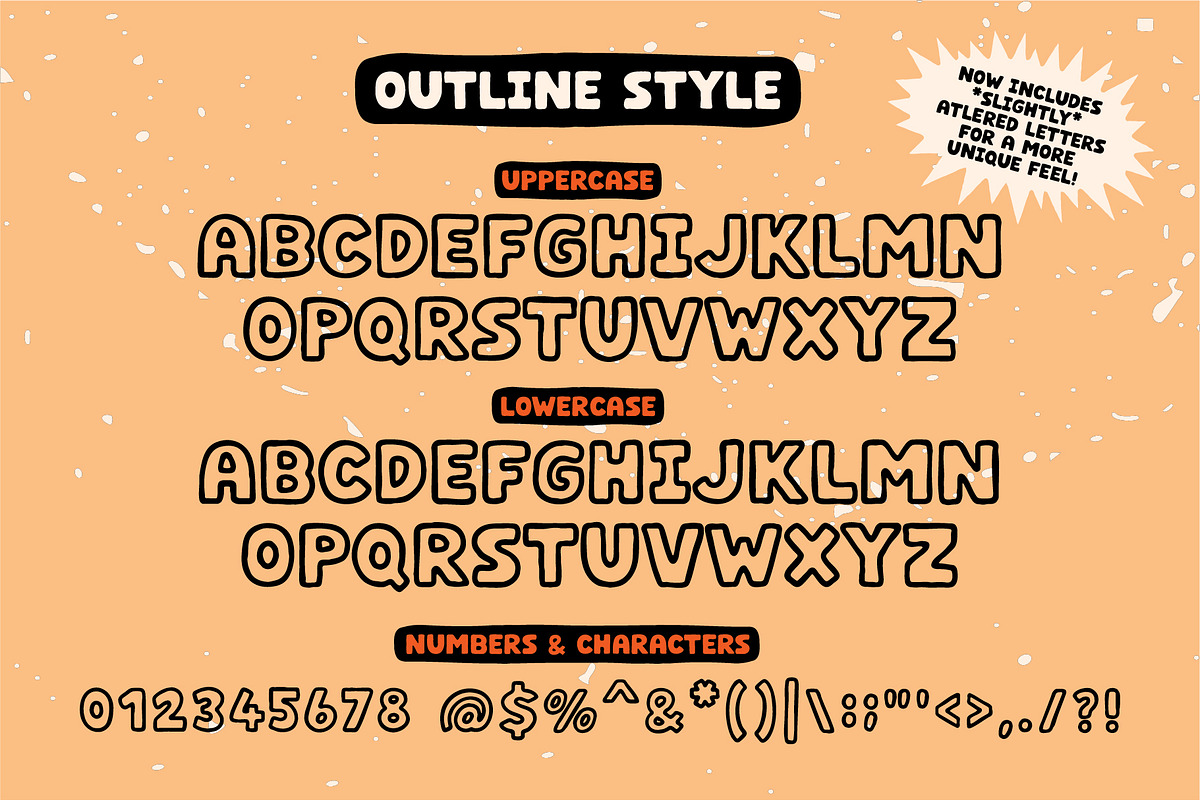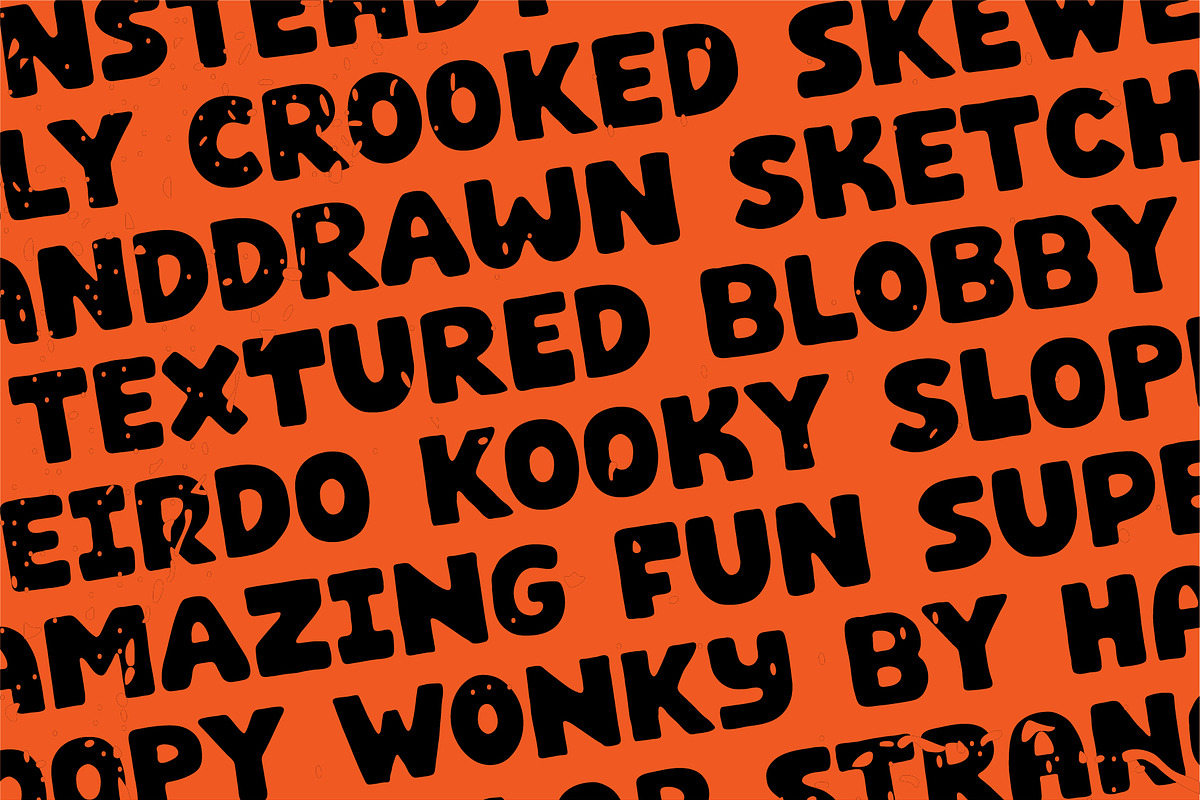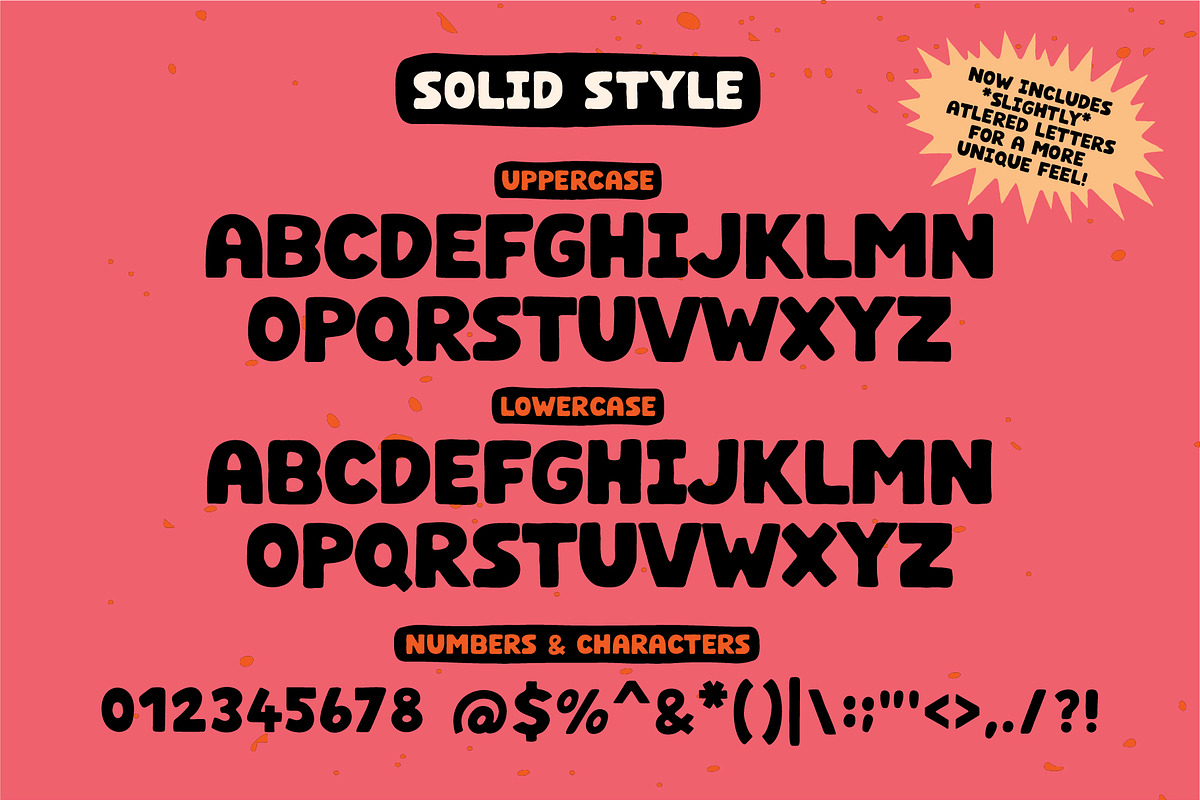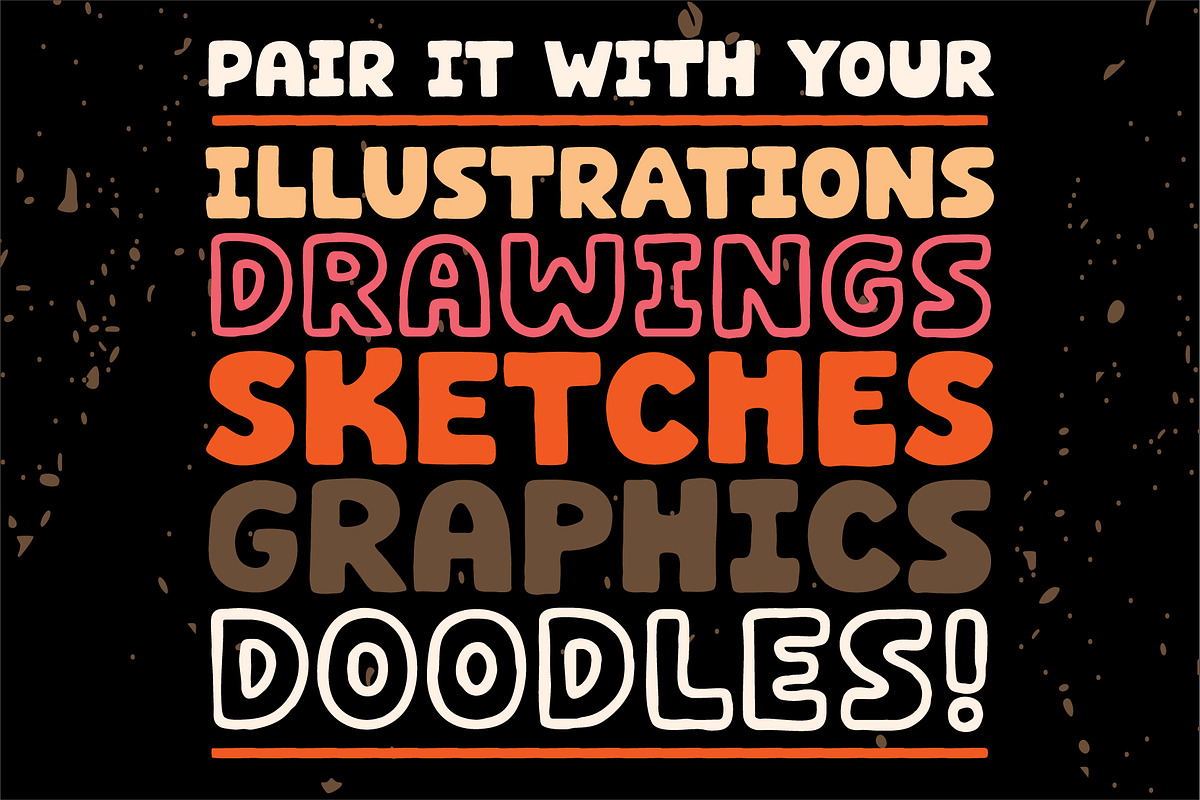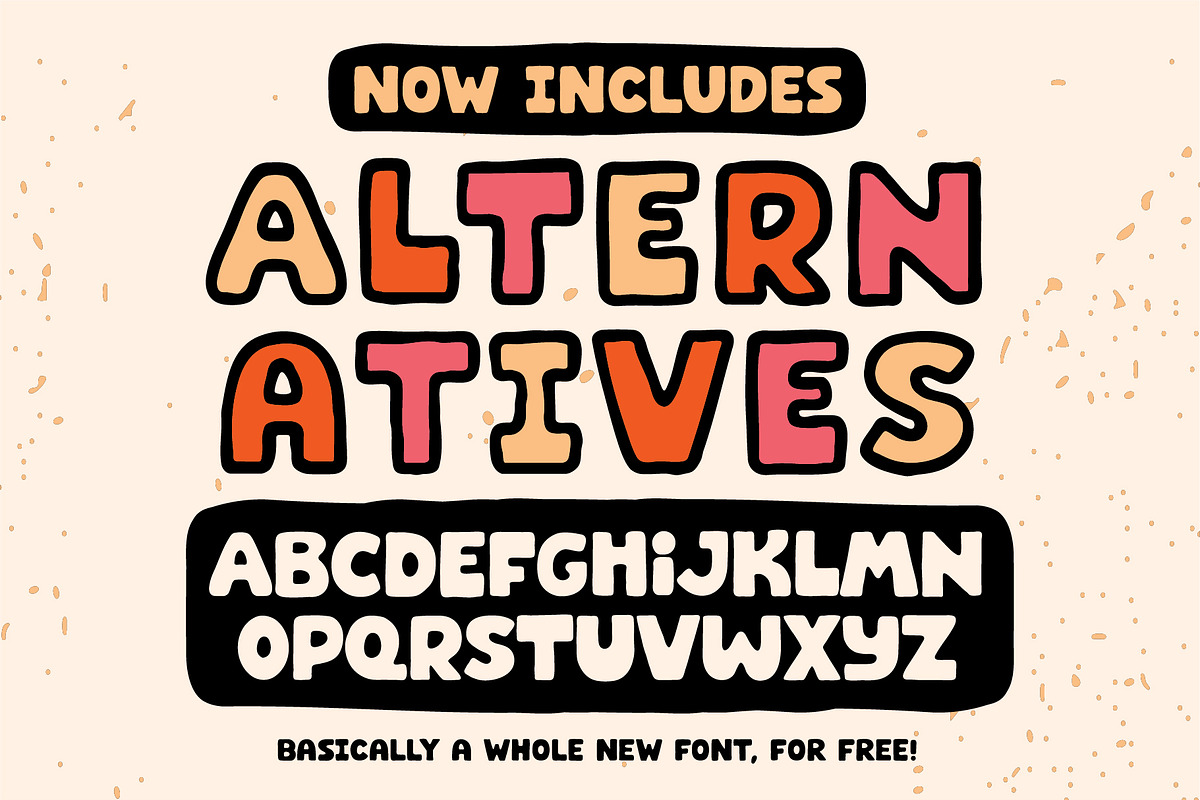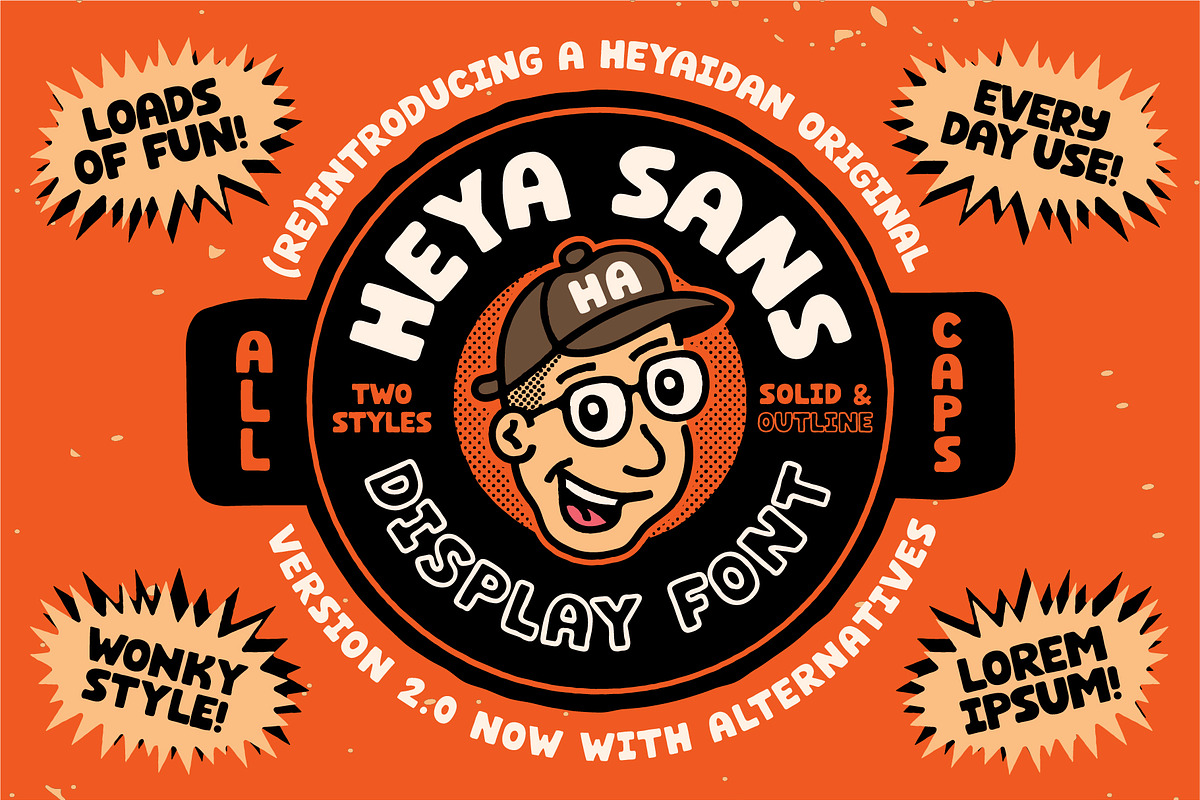
Re-introducing HEYA Sans Display Font!
Inject some extra fun into your next design project with this bold and blobby font! Works well scaled up or scaled down. Use on posters, t-shirts, illustrations or whatever else you can think of; it'll do the job!
This font was created from my handwritten, blocky lettering that I use for majority of my illustration work. Two styles are available; a wobbly outline version and solid filled version.
- Letters in all caps
- Full Punctuation
- Most common symbols
- Alternatives for all letters newly updated!
This is so cute. Outline fonts are not that common, and this one is large enough for my purposes. My Sunday School kids love having the title on a coloring page in Outline so they can color the letters in. There are four extra fonts that I find useful: lower case i, lower case y that does not descend below the line, a curved S, and an A with slanted sides rather than the vertical. I especially like the lower case i in place of the regular capital I.